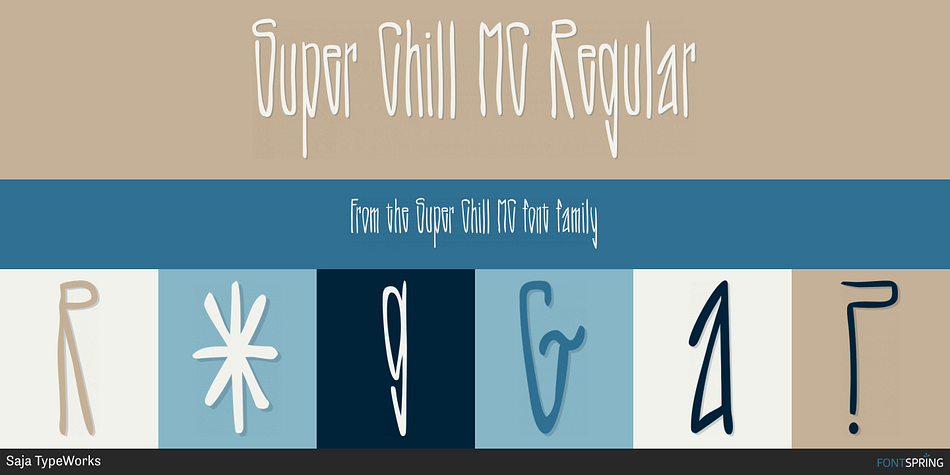
Super Chill MC Regular
Designed by Aaron Bell and Dave Savage, Super Chill MC is a hand display font published by Saja TypeWorks.
There is nothing wrong with your computer screen. Do not attempt to adjust the picture. We will control the horizontal. We will control the vertical. You are about the experience the awe and mystery which is Super Chill.
Super Chill Mind Control (MC) mixes super narrow letterforms with gothic inspiration, lulling you to sleep and also given you a freak out!
The font includes:
- A complete set of uppercase and lowercase letters, basic punctuation, numerals and currency figures, and diacritics
- Stylistic Opentype Alternates to avoid letter crashing
- Fun dingbats all sorts of nefarious purposes
- Western Europe language support
A collaboration between Dave Savage of Savage Monsters and Aaron Bell of Saja Typeworks.